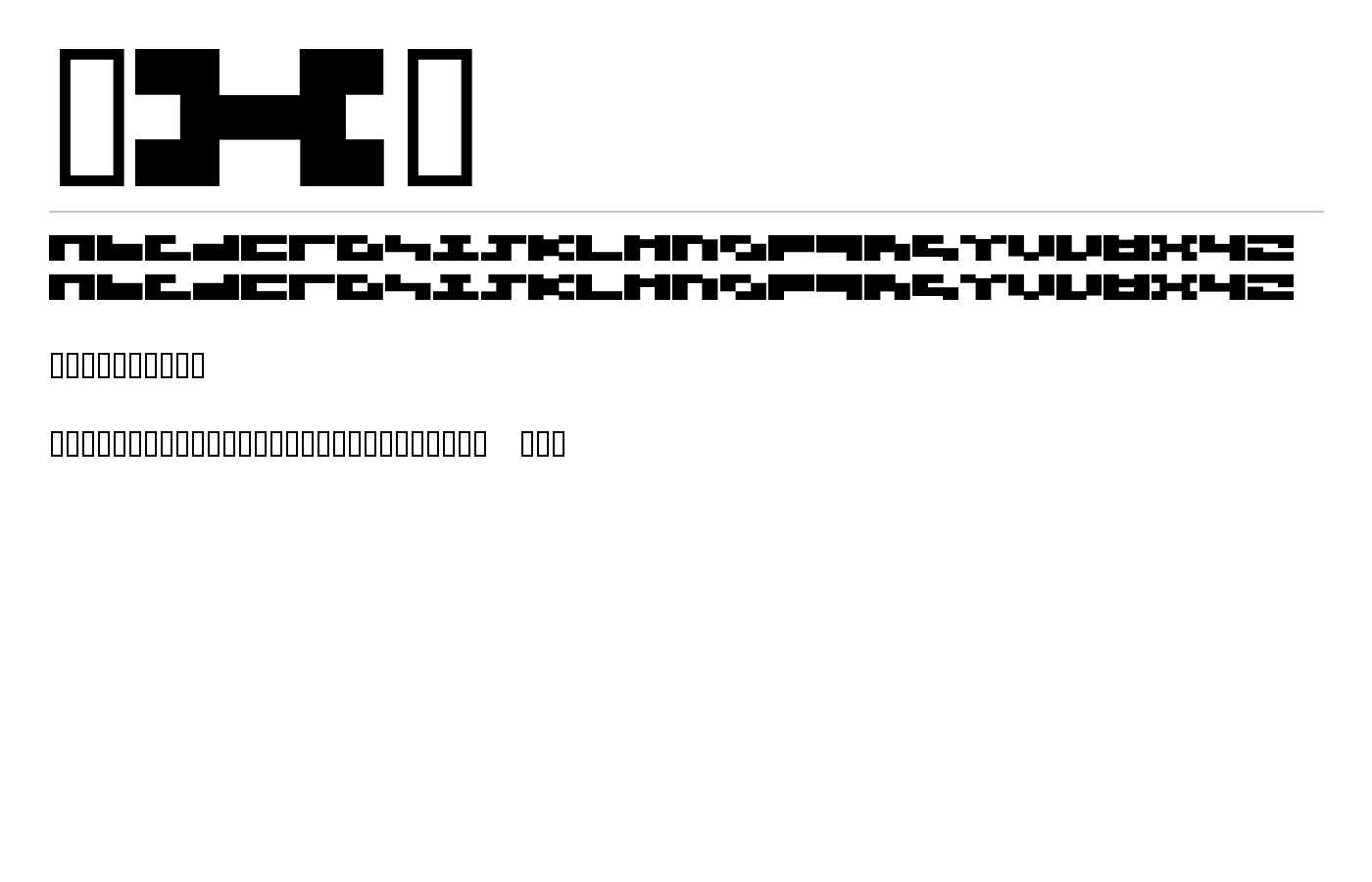
3x3 Font is a bold, blocky pixel-style typeface characterized by its heavy weight and geometric, square-shaped letterforms. With a uniform stroke width and minimal spacing, it exudes a retro, digital aesthetic reminiscent of early computer graphics, making it ideal for gaming, tech-themed projects, or eye-catching headlines where a strong, futuristic vibe is desired. Its distinct, high-contrast design works best in large sizes to maintain readability and emphasize its unique, grid-like appearance.
3x3 Font
About 3x3 Font
| Font family | 3x3 Font |